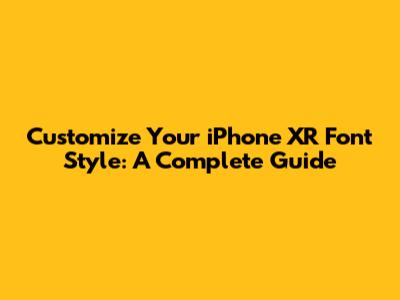
Hey there, tech-savvy folks and iPhone XR users! Ever wondered how to change font style in iPhone XR to truly make your device reflect your unique personality? You're definitely not alone. Many of us look at our sleek iPhones and wish we could easily swap out the standard system font for something a little more us. While iOS is renowned for its stability and user-friendliness, it also has a reputation for being quite particular about customization, especially when it comes to fundamental elements like system-wide fonts. Unlike some Android devices that offer a plethora of font options right out of the box, Apple’s approach is typically more curated and controlled. This means that simply heading into "Settings" and picking a new font style for your entire iPhone XR isn't quite as straightforward as you might hope. But don't you worry your pretty little heads, guys, because this doesn't mean you're stuck with Helvetica Neue or San Francisco forever! There are still plenty of fantastic ways to personalize your iPhone XR's textual appearance, whether you're looking for subtle tweaks to improve readability, or you're aiming for a bold new look in your social media posts and messages. We're going to dive deep into all the tricks and tips, uncovering both the official accessibility features that Apple provides and the creative third-party solutions that can bring a fresh new vibe to your digital life. We'll explore how you can adjust text size, bold your text, and even leverage specialized apps to inject some serious font flair into specific parts of your iPhone experience. So, buckle up, because by the end of this guide, you’ll be a pro at making your iPhone XR's text truly your own, transforming your daily interactions with your device from mundane to magnificent. Let's get started on this exciting journey to master iPhone XR font customization!
Understanding iPhone XR Font Customization Limitations
Let's get real, guys. When you first think about how to change font style in iPhone XR, your mind probably goes to a magical setting where you can browse a huge library of fonts – elegant serifs, playful scripts, futuristic sans-serifs – and with a single tap, transform every single letter on your phone, from the lock screen clock to your app names and messages. Unfortunately, for those of us rocking an iPhone XR, or indeed any modern iOS device, that particular dream remains, for now, just a dream. Apple’s operating system, iOS, is designed with a very specific philosophy: consistency, security, and user experience. This means that the system-wide font, currently a variant of San Francisco, is meticulously chosen and integrated across the entire OS to ensure optimal readability and a unified aesthetic. Apple tightly controls the core visual elements of iOS, including its typography, to maintain a consistent brand identity and to guarantee that apps developed for the platform look and feel uniform. This commitment to consistency is a double-edged sword: it provides a beautifully cohesive and polished user experience that's easy to navigate, but it also significantly limits direct system-wide font changes.
You see, guys, Apple doesn't typically allow users to change the primary system font because it could introduce a host of unforeseen issues. Imagine if every app developer had to account for hundreds of different user-chosen fonts – it would be a nightmare for design and functionality! Some fonts might be too thin to read on certain backgrounds, others might break app layouts, or some might not even contain all the characters needed for different languages. These potential problems could severely impact the user experience and the reliability that iPhone users have come to expect. Furthermore, maintaining a consistent font across the operating system helps with accessibility. Standardized fonts ensure that text is always legible for a wide range of users, including those with visual impairments. If users could pick any font, some choices might inadvertently create barriers for accessibility. So, when you're searching for "iPhone XR font styles" or "system-wide font change iPhone XR," remember that the absence of a direct option isn't an oversight, but a deliberate design choice by Apple rooted in their core principles. While this might feel a bit restrictive at first, it forces us to explore alternative and creative ways to personalize our text which, as we'll see, are quite powerful in their own right. Understanding these limitations is the first crucial step in effectively leveraging the customization options that are available, helping you adjust your iPhone XR's textual appearance in practical and stylish ways. We’re not giving up on making our phones unique just because Apple has a strong design philosophy; we’re just getting smarter about how we achieve it! This foundational knowledge will empower you to make informed decisions about how to best customize your iPhone XR text.
Accessibility Settings: The Official Way to Adjust Fonts
Alright, guys, since we can't just swipe through a font menu and instantly transform every letter on our iPhone XR with a whimsical new typeface, let's talk about the official, built-in ways that Apple does allow us to modify the text on our devices. These options are primarily found within the "Accessibility" settings, and while they don't introduce entirely new font styles, they offer incredibly powerful tools to enhance readability and make your iPhone XR feel more comfortable and tailored to your specific visual needs. These aren't just for users with specific accessibility requirements; they're fantastic for anyone looking to optimize their screen's text display. Understanding these settings is your first real step towards personalizing your iPhone XR's text experience.
Adjusting Text Size with Dynamic Type
One of the most impactful ways to customize your iPhone XR text is through Dynamic Type. This incredible feature, designed by Apple, allows you to easily increase or decrease the text size across a vast majority of iOS apps. Instead of just making everything bigger and pixelated, Dynamic Type smartly scales the text while maintaining its clarity and readability, adjusting layouts where possible to accommodate the changes. This is a game-changer for those who find the default text a bit too small, or perhaps a bit too large! To access this, head over to Settings > Accessibility > Display & Text Size > Larger Text. Here, you'll find a slider that lets you adjust the text size. As you drag the slider, you'll immediately see a preview of how the text will appear. For even larger options, you can toggle on "Larger Accessibility Sizes," which extends the slider's range significantly. This feature is a prime example of Apple’s commitment to user comfort and accessibility, allowing you to fine-tune your iPhone XR's textual presentation to perfectly match your vision. Many developers embrace Dynamic Type in their apps, meaning that once you set your preferred size here, it often applies automatically across your favorite applications, from Messages to Safari and even many third-party apps. This consistency is super handy and makes your iPhone XR much more enjoyable to use daily. For those aiming to truly personalize their visual experience, adjusting text size via Dynamic Type is often the first and most effective step. It ensures that essential information is always clear and comfortable to read, reducing eye strain and making your device more pleasant for extended use. It's a foundational adjustment that genuinely impacts your interaction with your iPhone XR's text, setting the stage for further stylistic changes we’ll discuss. This easy-to-implement feature demonstrates how Apple, despite its restrictions on system-wide font changes, still empowers users to optimize their text display for personal preference and accessibility.
Making Text Bold for Enhanced Visibility
Another simple yet highly effective way to tweak your iPhone XR's text appearance is by making it bold. This isn't about changing the font itself, but rather giving the existing system font a bit more weight, making it stand out and often improving its legibility, especially on busy backgrounds or for those who prefer a stronger visual contrast. To turn on Bold Text, navigate to Settings > Accessibility > Display & Text Size and simply toggle on the "Bold Text" option. Your iPhone XR will then prompt you to restart to apply the change, and once it boots back up, you'll notice that all system text – app names, menu items, message text, and compatible app content – will appear in a bolder variant. This subtle modification can dramatically improve the clarity and visual impact of your device's interface, making text pop more and feel more substantial. It’s a fantastic option for anyone who feels their iPhone’s default text looks a bit too 'light' or struggles to differentiate text easily. This simple adjustment for your iPhone XR text can make a big difference in daily usage, giving your entire interface a more defined and assertive look without changing the underlying font style. It’s a great choice for those who want their iPhone XR text to have a bit more presence without altering the core typography. The increased contrast provided by bold text can also be incredibly beneficial in various lighting conditions, from bright sunlight to low-light environments, ensuring that your text remains crisp and easy to read. This option provides a consistent visual upgrade across the entire operating system, reinforcing Apple’s commitment to making the iPhone experience comfortable and clear for all users. It's an often-overlooked but highly effective way to customize your iPhone XR text for better readability and a more robust visual aesthetic.
Using Zoom and Display Zoom for a Broader View
While not strictly a font style change, Zoom and Display Zoom are powerful tools within accessibility settings that significantly alter how text and other elements are presented on your iPhone XR screen, which indirectly impacts the perceived font size and clarity. Display Zoom, found under Settings > Display & Brightness > Display Zoom, offers two main views: "Standard" and "Zoomed." When you select "Zoomed," your iPhone XR essentially renders the entire interface at a larger scale, making everything – icons, buttons, and crucially, all text – appear bigger. This is different from Larger Text (Dynamic Type) because it affects the entire UI, not just adaptable text elements. It's like your iPhone XR's screen becomes a magnifying glass for the whole operating system. This can be fantastic for those who want an overall larger, less cluttered interface, effectively giving you larger fonts across the board. It simplifies the visual landscape, making navigation and reading more comfortable by providing greater spacing between elements and increasing the size of every piece of iPhone XR text. For users who find the standard interface a bit too dense or compact, Display Zoom offers a comprehensive solution to expand the visual elements, making the iPhone XR experience feel more open and accessible. Additionally, the more granular "Zoom" feature (under Settings > Accessibility > Zoom) allows you to magnify specific parts of the screen with a triple-tap gesture. You can pan around the magnified area, and even use a controller to adjust the zoom level and region. While primarily an accessibility feature, it’s a brilliant way to get a closer look at small text or intricate details, essentially giving you temporary super-sized fonts whenever you need them. These features truly empower you to tailor the visual experience of your iPhone XR, ensuring that every piece of text is presented in a way that is most comfortable and legible for you. By exploring these official settings, you’re not just making your phone accessible, you’re making it personally optimized, which is a huge win for anyone seeking a better iPhone XR text experience. These fundamental changes are foundational to effectively customize your iPhone XR font style within Apple's ecosystem, providing robust control over how your device's visual information is displayed.
Customizing Fonts Within Apps (Where Possible!)
Alright, guys, now that we've covered the official, system-wide adjustments for how to change font style in iPhone XR that mostly focus on size and boldness, let's dive into the exciting world of app-specific font customization. While Apple keeps a tight leash on the core iOS system font, many individual applications do offer options to change their internal font styles. This is where you can really start to inject some personality and unique flair into your iPhone XR's textual presentation, especially in the places where you spend a lot of your digital life. Think about it: social media, messaging, note-taking, and even certain creative apps often provide more flexibility. The key here is to realize that these changes are confined to the specific app you're using, meaning a font you pick in Instagram won't automatically show up in your Mail app. But hey, that's still a massive win for personalization! This approach allows developers to offer diverse typographical options without affecting the overall consistency of iOS, giving you the best of both worlds: a stable operating system and creative freedom within your favorite applications. This flexibility makes a huge difference in how your content looks and feels, transforming your iPhone XR's text from generic to genuinely engaging within these specific platforms.
Many popular social media platforms are prime examples. Take Instagram, for instance. When you create stories, you have access to a variety of built-in font styles that are completely different from your iPhone XR's system font. You can choose from classic, modern, neon, typewriter, and many more to make your stories visually engaging. Similarly, on TikTok, you can select various font options for your video captions and text overlays. These apps understand the importance of creative expression, and they’ve integrated specific tools to help you customize your textual content right within their interfaces. This goes beyond just text size; here, you're actually picking different typographical styles. These built-in font selections are curated by the app developers to ensure they look good and function well within their specific design ecosystem. This allows you to express your personal brand or mood directly through the text you share, making your iPhone XR a powerful tool for visual storytelling. The ability to switch between playful, elegant, or bold fonts within these apps significantly enhances your creative output and helps your content stand out in a crowded digital landscape, giving your iPhone XR's text a dynamic edge that users truly appreciate.
Beyond social media, many note-taking apps and word processors for iOS also offer extensive font customization options. Apps like Pages, Microsoft Word, Google Docs, or even dedicated journaling apps often come with a wide array of fonts that you can use for your documents and notes. This is particularly useful for students, professionals, or anyone who uses their iPhone XR for writing and wants their documents to have a specific look and feel. You can typically find these settings within the app's formatting tools, allowing you to select different font families, adjust sizes, apply bold or italic styles, and even change colors. For example, if you’re writing a creative piece in a third-party note app, you might choose a whimsical script, whereas for a professional memo, you’d stick to a crisp, clean sans-serif. The ability to control the font style within these productivity apps allows for a more personalized and often more engaging creative workflow on your iPhone XR. This level of control is essential for maintaining professional consistency or injecting personal flair into your digital documents. By utilizing these app-specific font options, you transform your iPhone XR into a versatile creative and productive powerhouse, where every piece of text can be tailored to its purpose and your preference. This ensures that your iPhone XR's textual output is always perfectly aligned with your intentions, making a significant impact on your daily tasks.